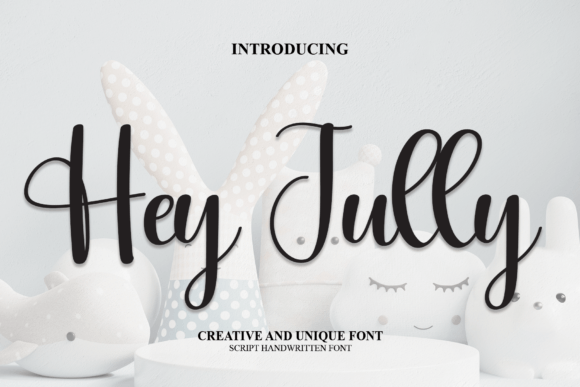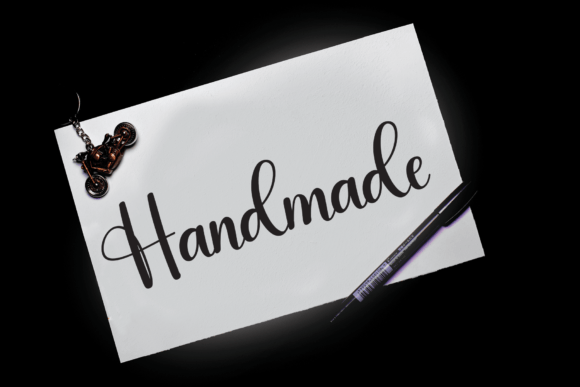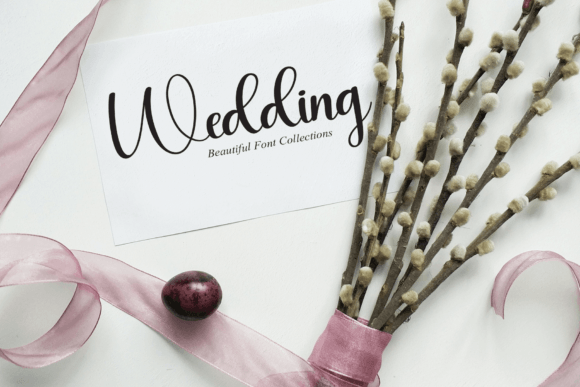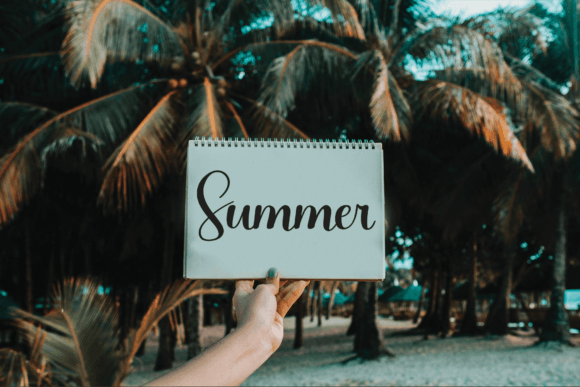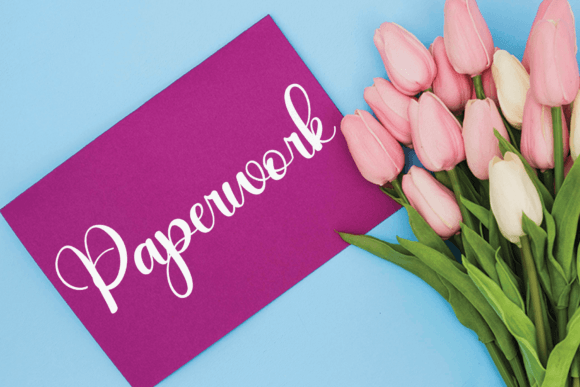
Hey Jully Font
About Hey Jully Font
Introducing a truly distinctive handwritten font, characterized by an elegant touch and meticulously crafted for your beloved projects. Prepare to be enchanted by its entirely unique and timeless style, igniting a love affair that will inspire you to craft designs that are nothing short of spectacular.
What sets this font apart is its unparalleled uniqueness. Each stroke and curve are thoughtfully designed, offering a fresh and innovative perspective on the art of typography. It’s not merely a font; it’s a design statement, an embodiment of creativity poised to elevate your projects to new and extraordinary heights.
The handwritten allure of this font introduces a personal and authentic touch to your designs, fostering a deep connection with your audience. It transcends the boundaries of mere letters, becoming an expressive tool that tells a story of elegance and refinement. It’s the ideal choice for projects that demand a touch of sophistication and a timeless aesthetic.
In a world dominated by fleeting trends, this font stands as a testament to enduring style. Its appeal isn’t confined to the transient nature of design fads; instead, it radiates a timeless charm that ensures your creations remain relevant and impactful across different eras. It becomes a trusted companion on your creative journey, promising enduring beauty in every application.
Discover the versatility of this font and fall in love with its ability to adapt to various design contexts. Whether it’s branding, invitations, posters, or any creative endeavor, this font seamlessly transforms your ideas into visually striking and spectacular designs.
In summary, this unique handwritten font is more than a mere tool; it’s an invitation to explore the boundless possibilities of creativity. Its elegance, distinctiveness, and timeless appeal make it an indispensable asset for your favorite projects, turning each design into a showcase of spectacular artistry. Embrace the extraordinary, and let this font be the muse for your most spectacular designs.